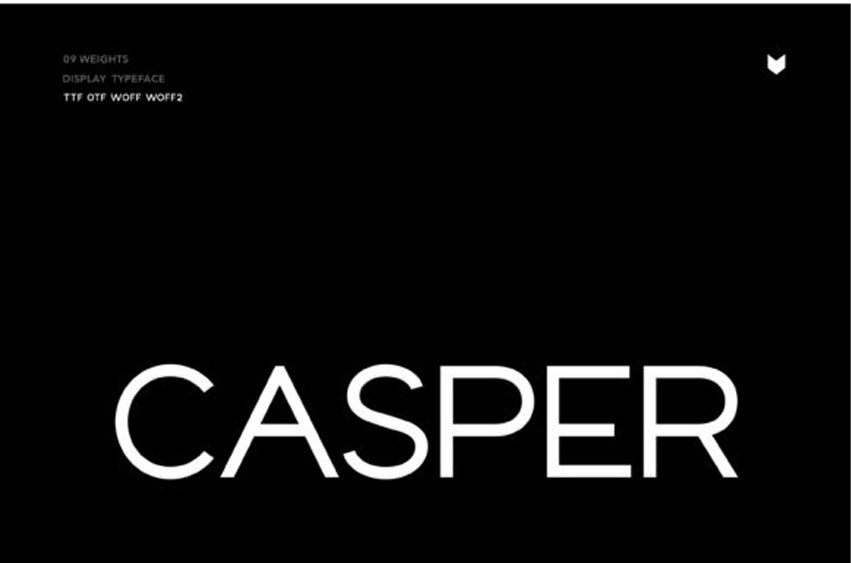
Casper Font is a neat and modern sans serif font family that embodies elegance in every character.
It works great in large and small sizes, formal and informal projects, and can be a great value to anyone’s font library!